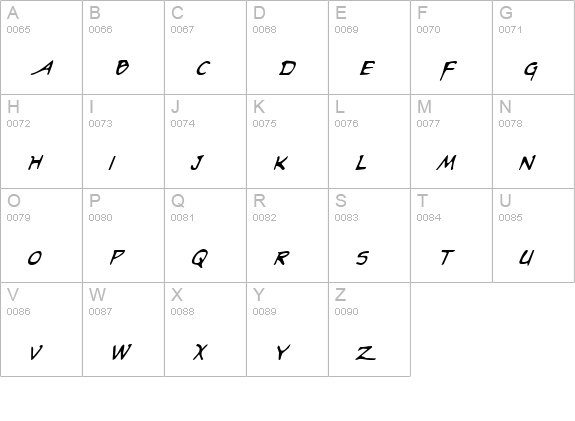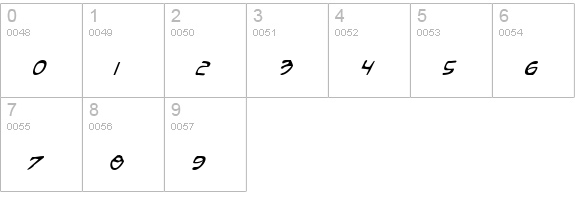
Arilon Condensed Italic is a distinctive, condensed-width, italic variant in the Arilon typeface family \xE2\x80\x94 well suited to design and typography projects.
Arilon Condensed Italic font is a sleek and modern typeface designed to add a touch of sophistication to any design project. Its elegant and stylish appearance makes it perfect for a wide range of applications, from branding to editorial design. The italic style adds a dynamic and fluid look to the text, making it stand out and draw attention. What's even better is that Arilon Condensed Italic font is available for free download at FontsMarket.com. This means that you can easily access this high-quality font without any cost, making it a valuable addition to your font collection. Don't miss out on the opportunity to enhance your designs with this beautiful and versatile typeface - download Arilon Condensed Italic font today!